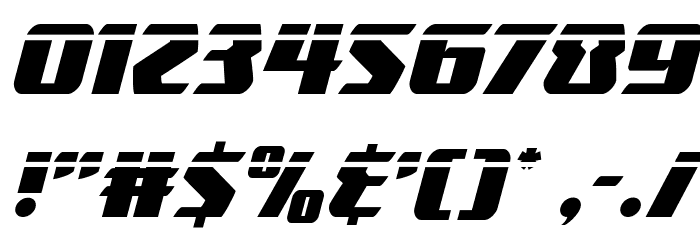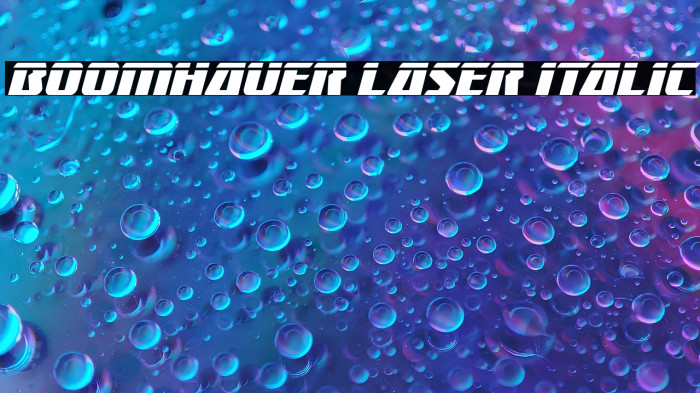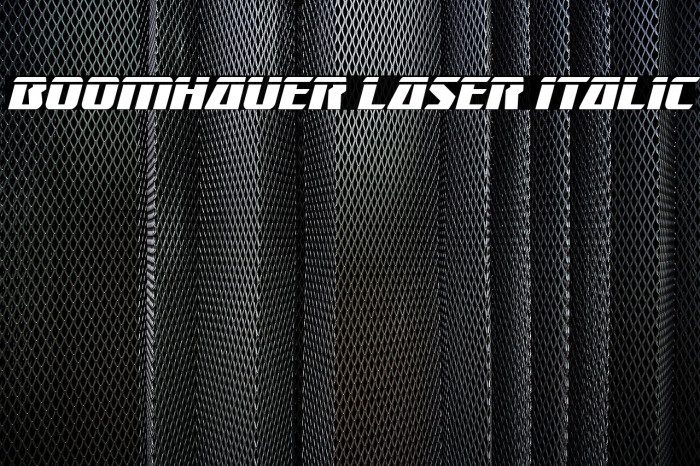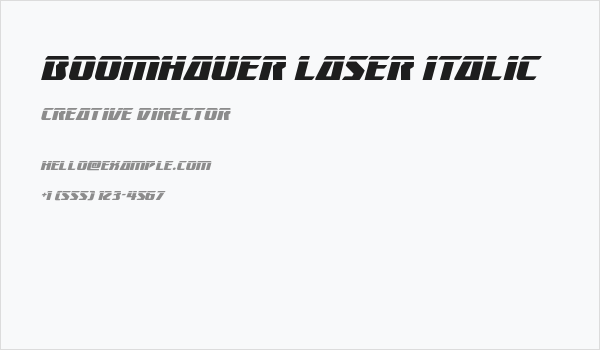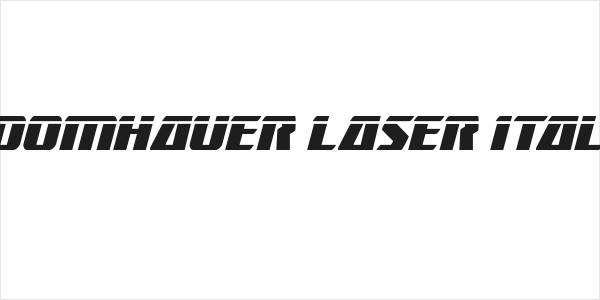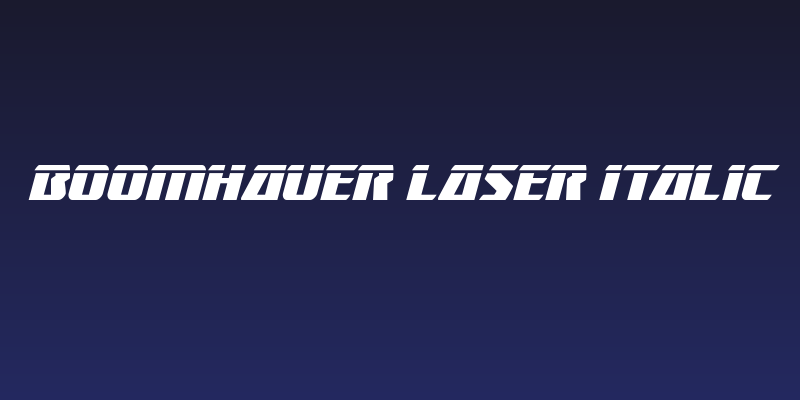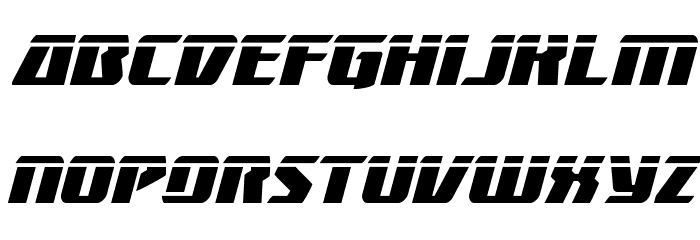
Boomhauer Laser Italic Font
Boomhauer Laser Italic Description
This font features a bold, italicized style with a futuristic and dynamic appearance. The characters are designed with sharp angles and a slanted orientation, giving a sense of motion and speed. The uppercase and lowercase letters maintain a consistent geometric structure, while the numbers and special characters complement the overall aesthetic. The font's design is reminiscent of digital or sci-fi themes, making it ideal for projects that require a modern and edgy look.
| Proposed Projects | Ideal for sci-fi themed designs, video game graphics, tech branding, and futuristic posters. |